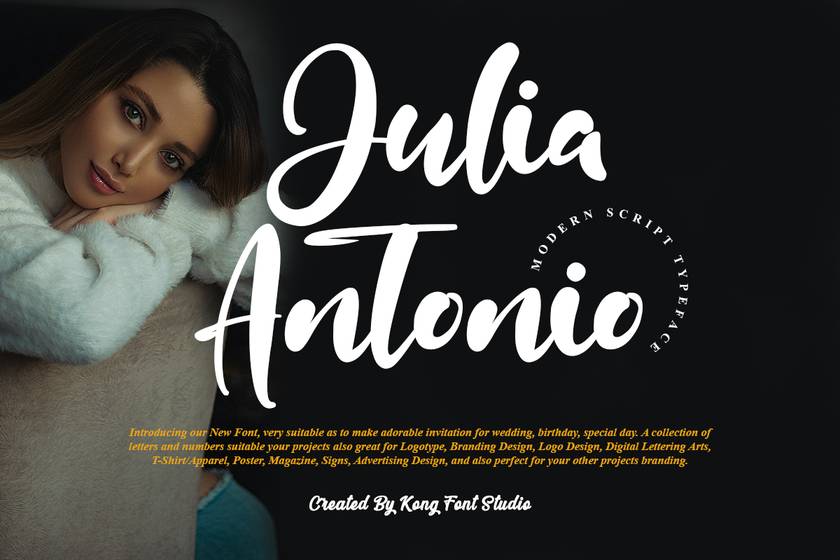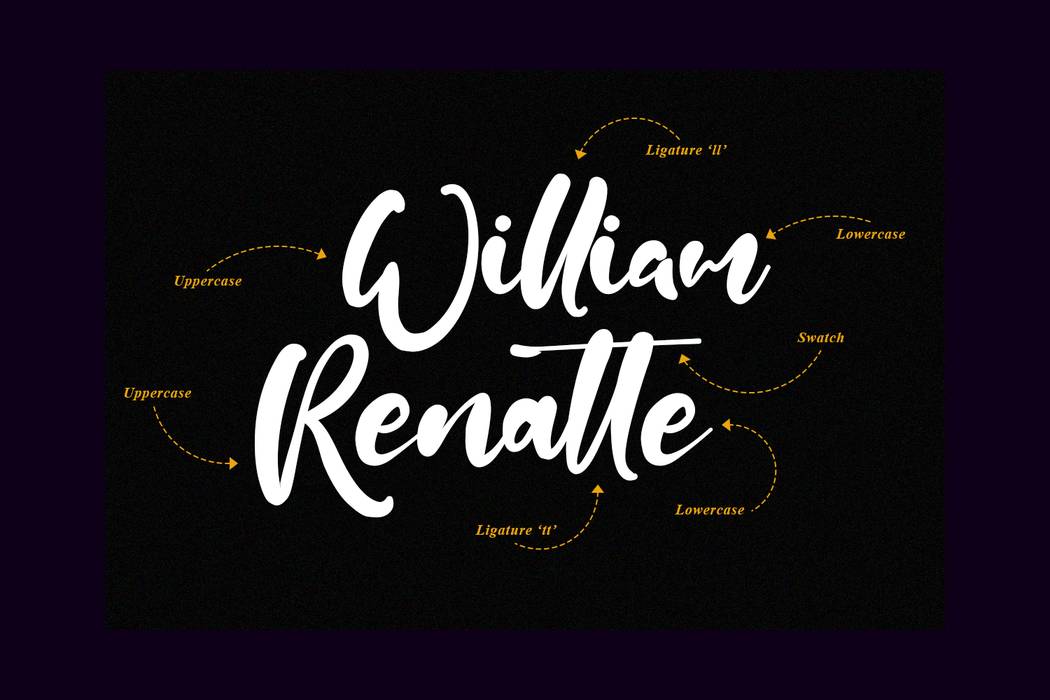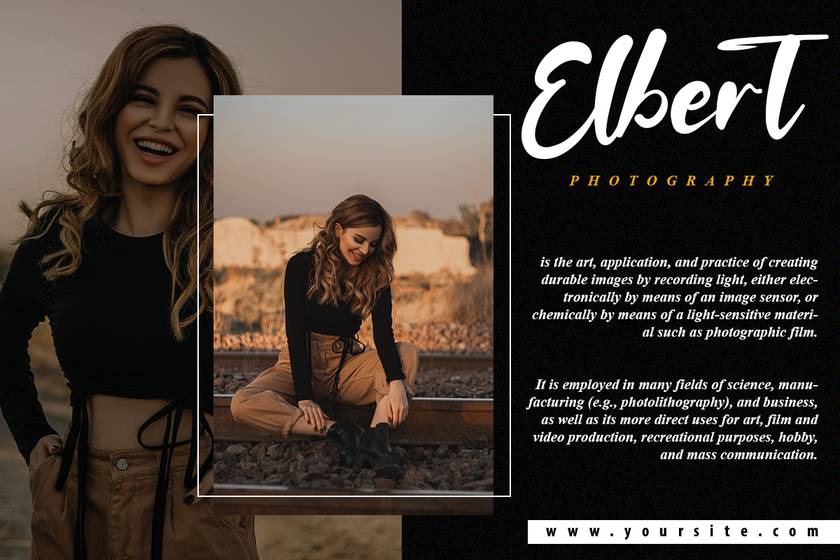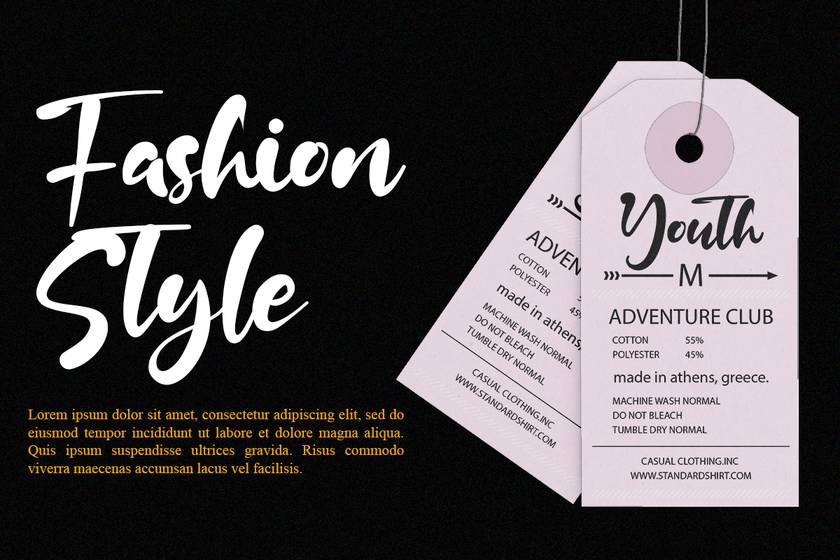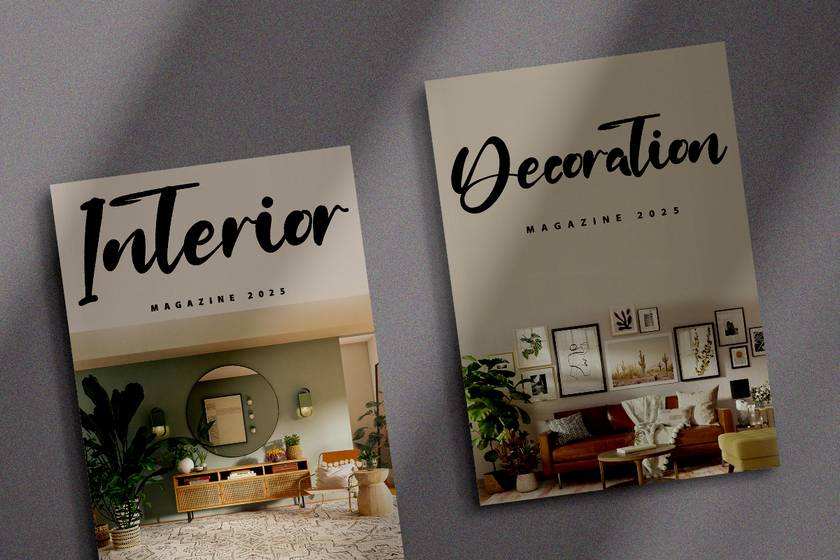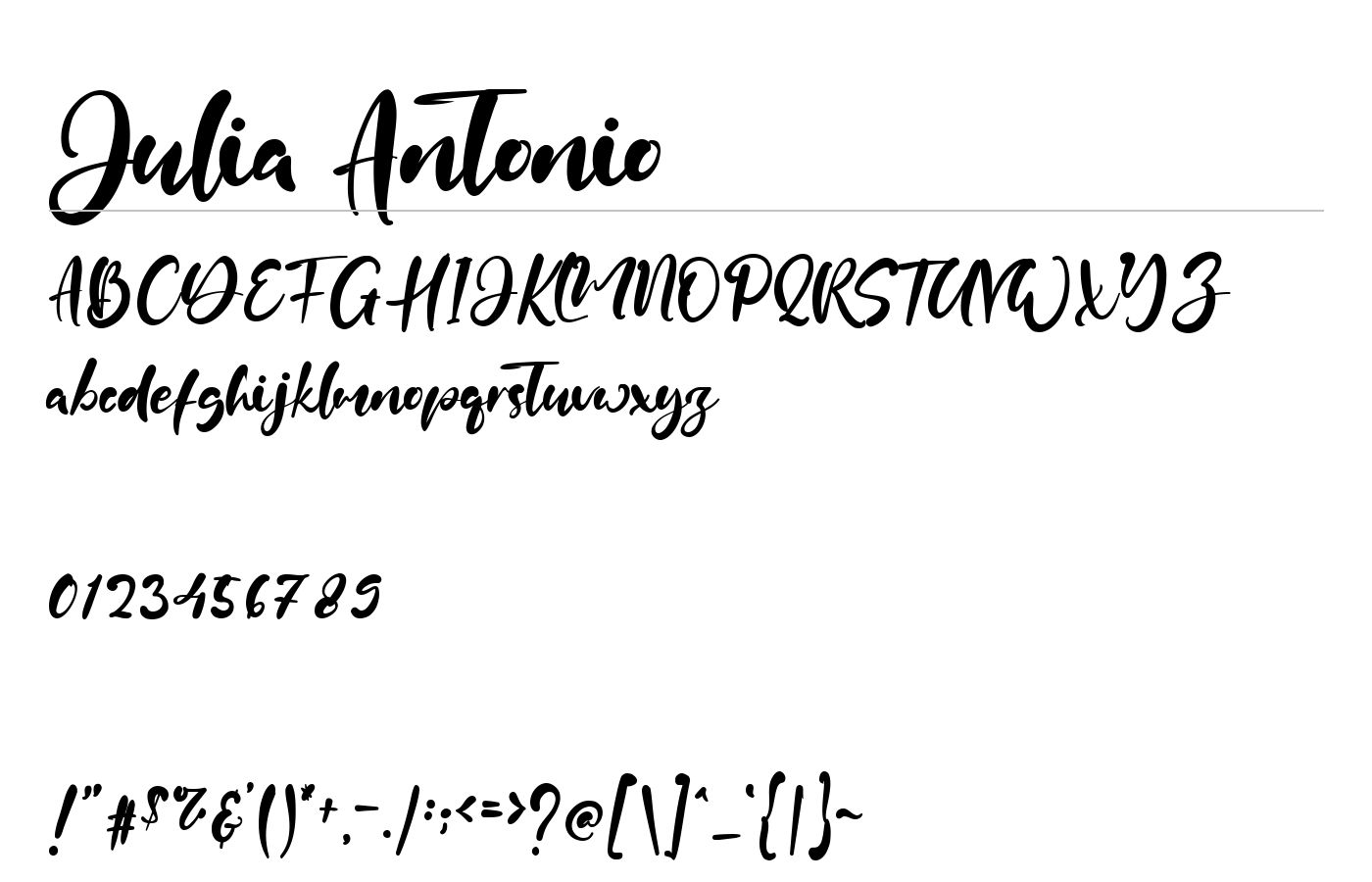
Julia Antonio is a lively, handwritten script font that combines elegance with a casual, playful vibe. Its smooth, flowing strokes and varying thicknesses create a dynamic, personal feel, making it perfect for branding, invitations, and creative projects that want a warm, approachable touch. This font stands out in designs that seek to express individuality and charm while maintaining readability.
Julia Antonio Font
About Julia Antonio Font
| Font family | Julia Antonio Font |